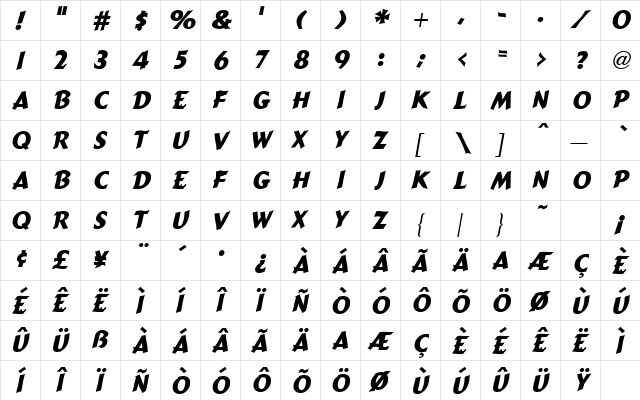
Cartoon Slant Bold
Design Context for Cartoon Slant Typeface
Cartoon Slant has an approachable, lighthearted character — its loose, expressive forms are well-suited to children's content, casual branding, and fun-first design.
Great for children's books, toy packaging, family event branding, and casual consumer-facing design.
Font Pairing: Pairs well with a rounded or humanist sans for body copy, maintaining the friendly tone without relying on Cartoon Slant to carry extended reading.
Pro Tip: Avoid using Cartoon Slant for long passages of text — it works best for headlines, labels, and short calls to action.